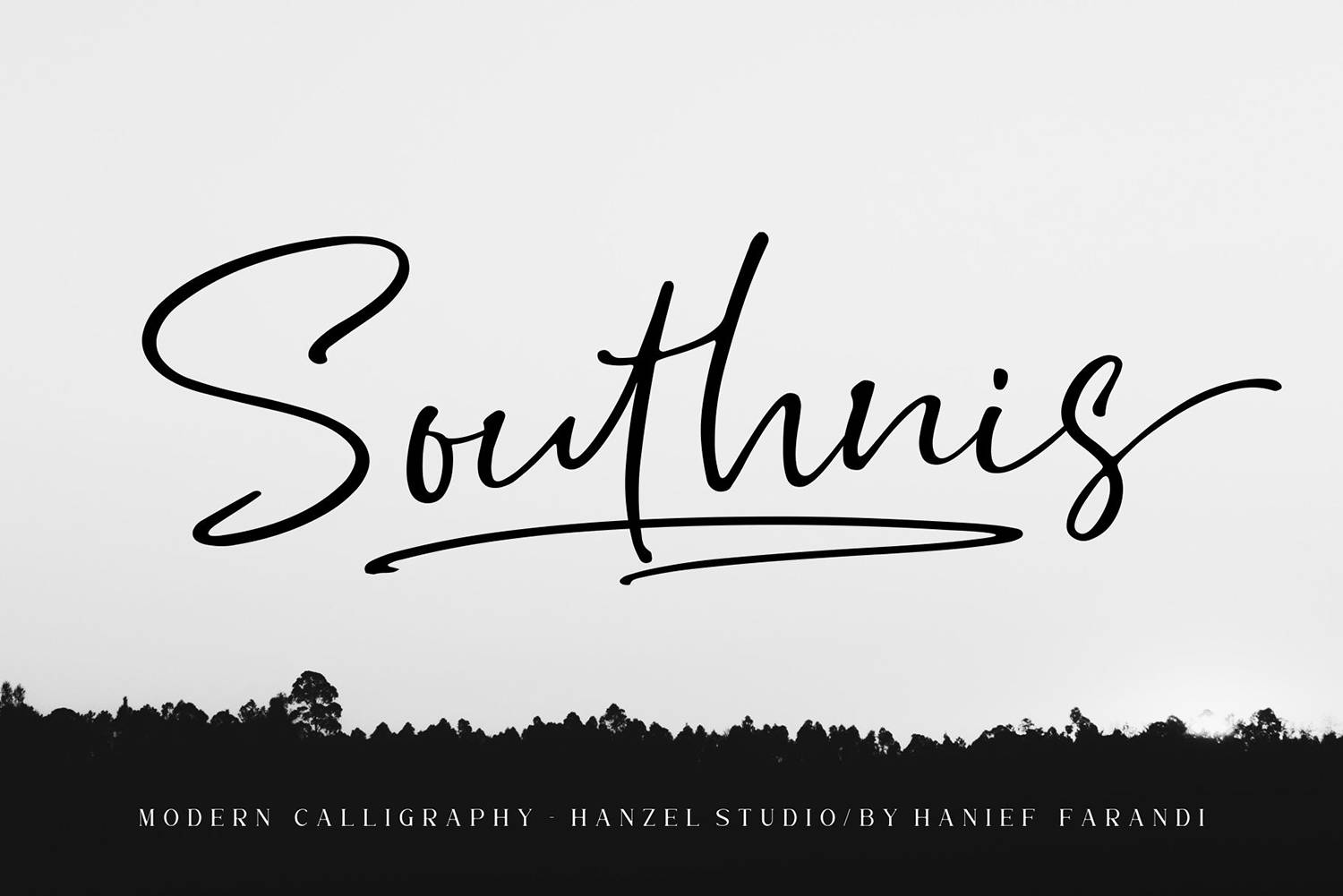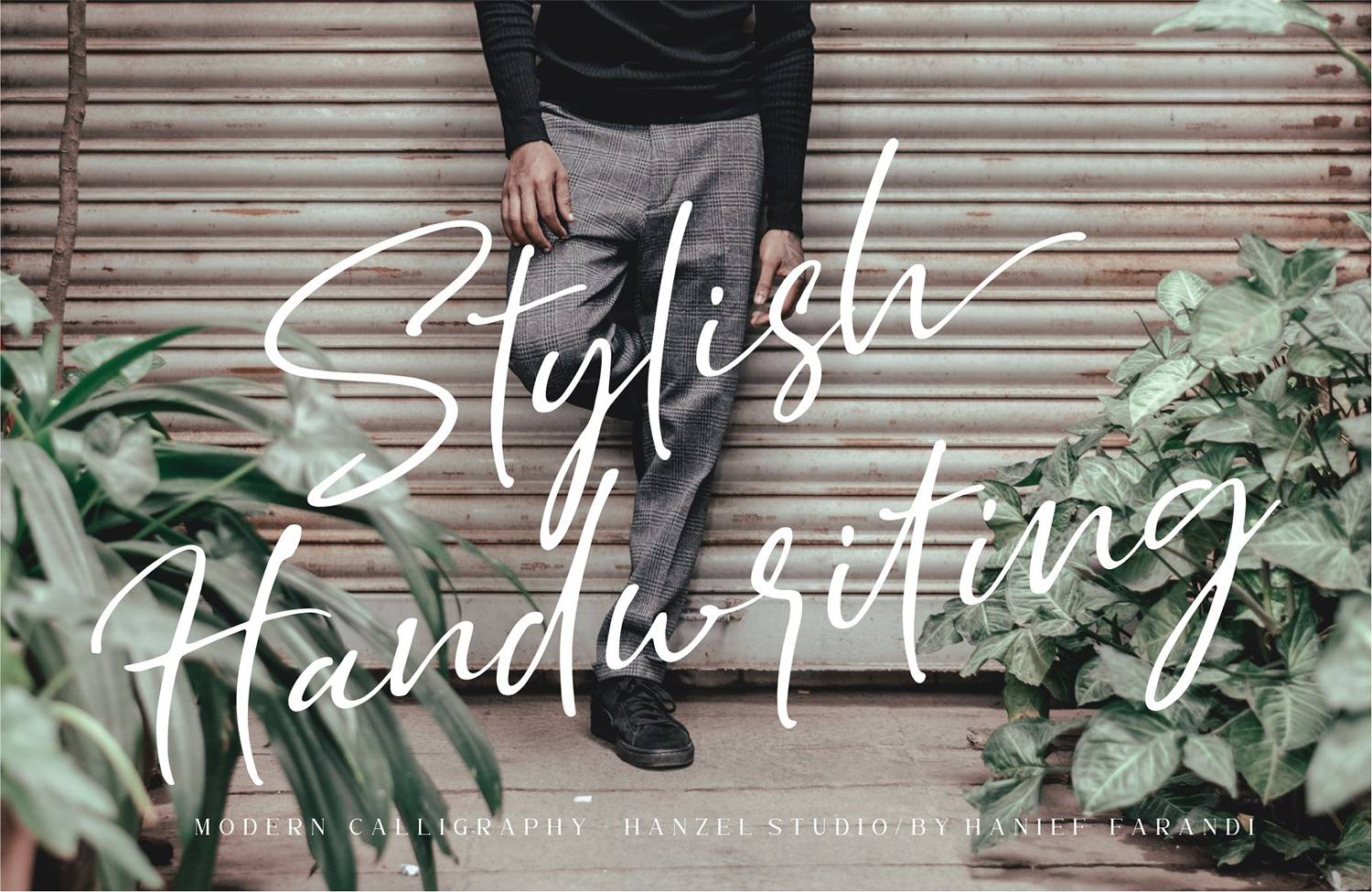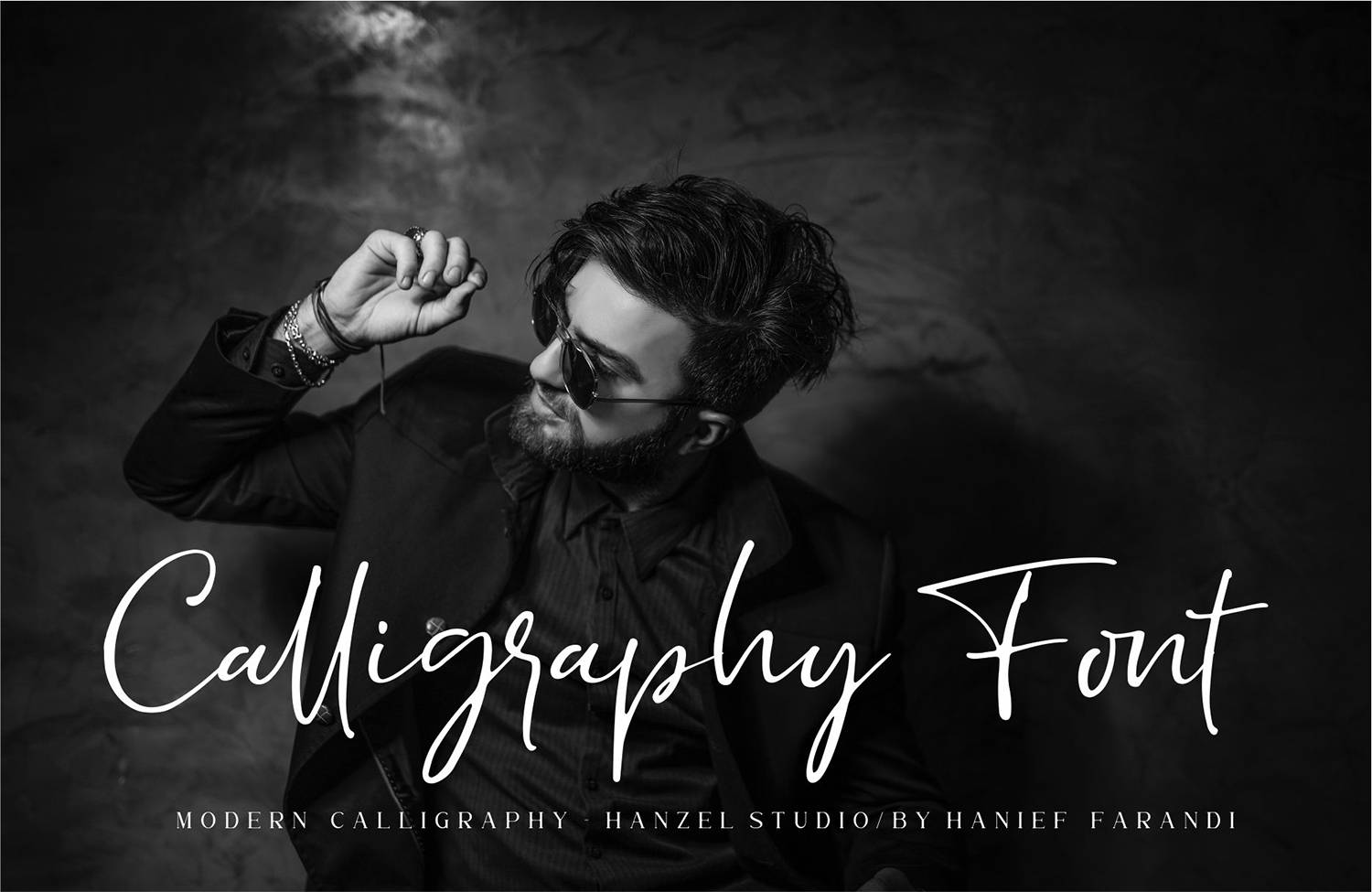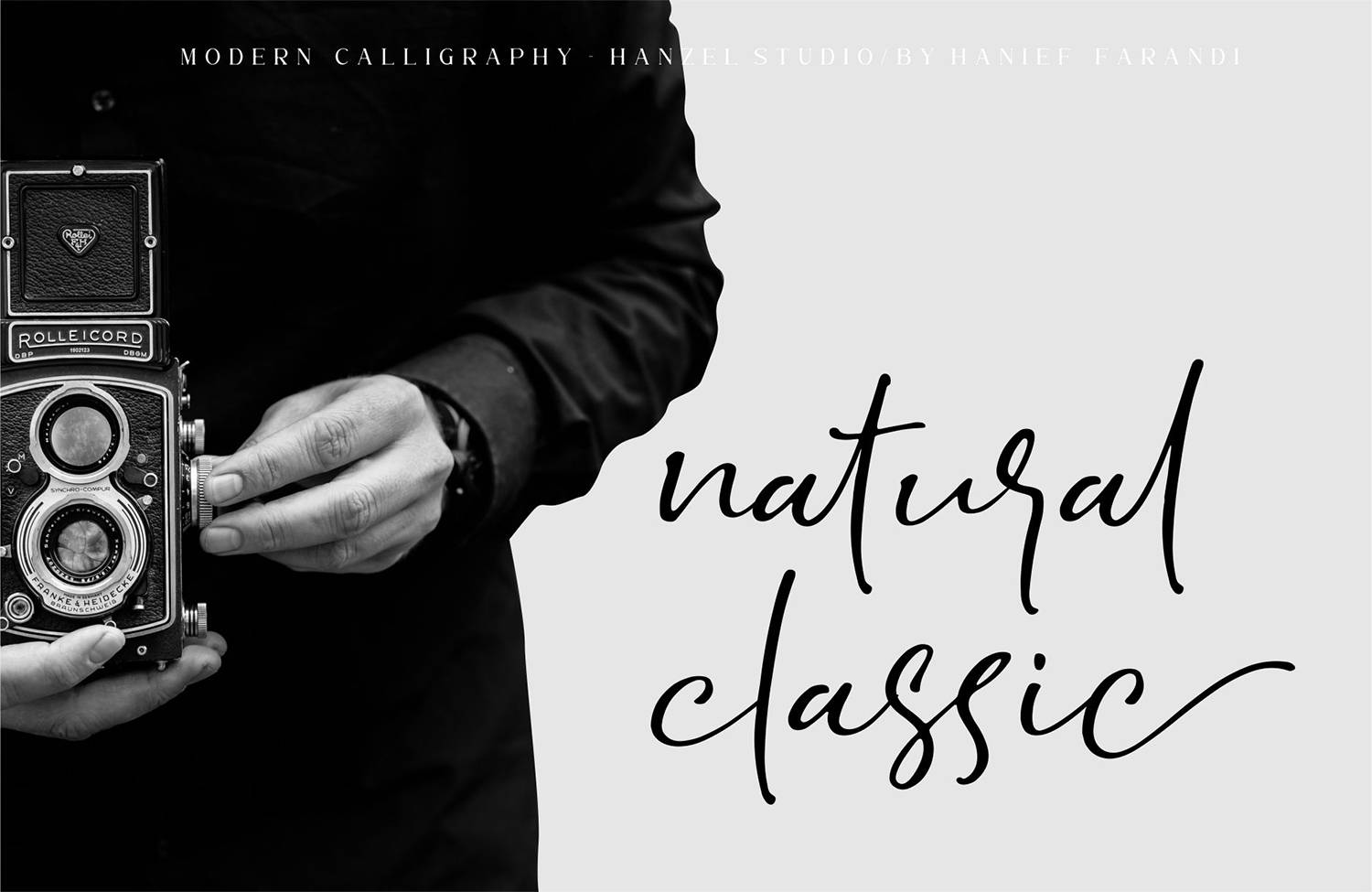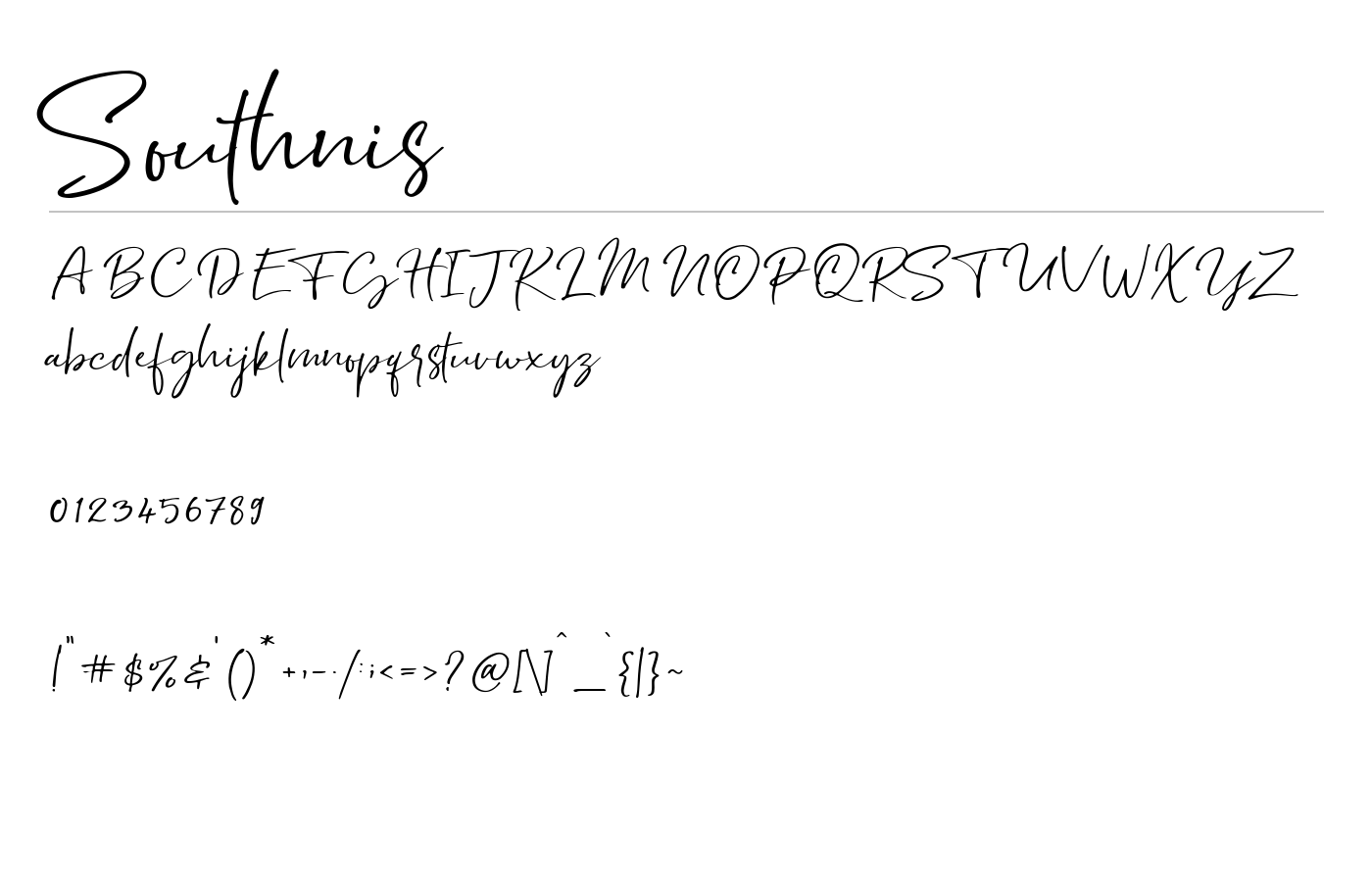
Southnis Script Font is an elegant and flowing handwritten script with a light, delicate stroke that mimics natural penmanship. Its slender letterforms and dynamic, slightly irregular lines give it a personal and sophisticated feel, ideal for invitations, branding, and stylish editorial designs. This font works best when used in creative, feminine, or high-end contexts where a graceful, intimate touch is desired.
Southnis Script Font
About Southnis Script Font
| Font family | Southnis Script Font |
| Designer | hanief farandi |